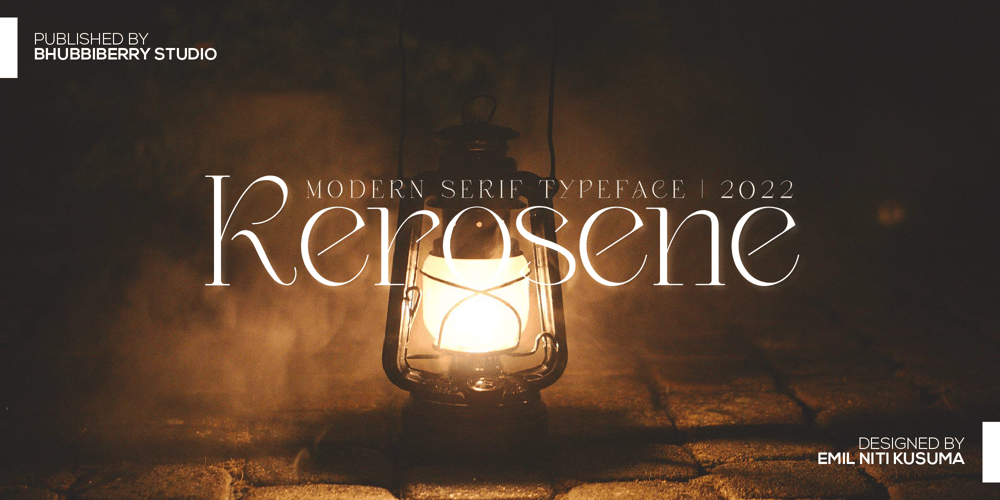
Kerosene
Kerosene font
Kerosene Font Family was designed by Emil Niti Kusuma and published by Bhubbiberry Studio. Kerosene contains 1 styles and family package options. Kerosene a modern-style serif font that create chic logos, quotes, posts, blog posts, book cover, branding projects, magazine imagery, music logo, movie poster, wedding invitations and much more! Kerosene support multilingual languages, numbers,and punctuations.